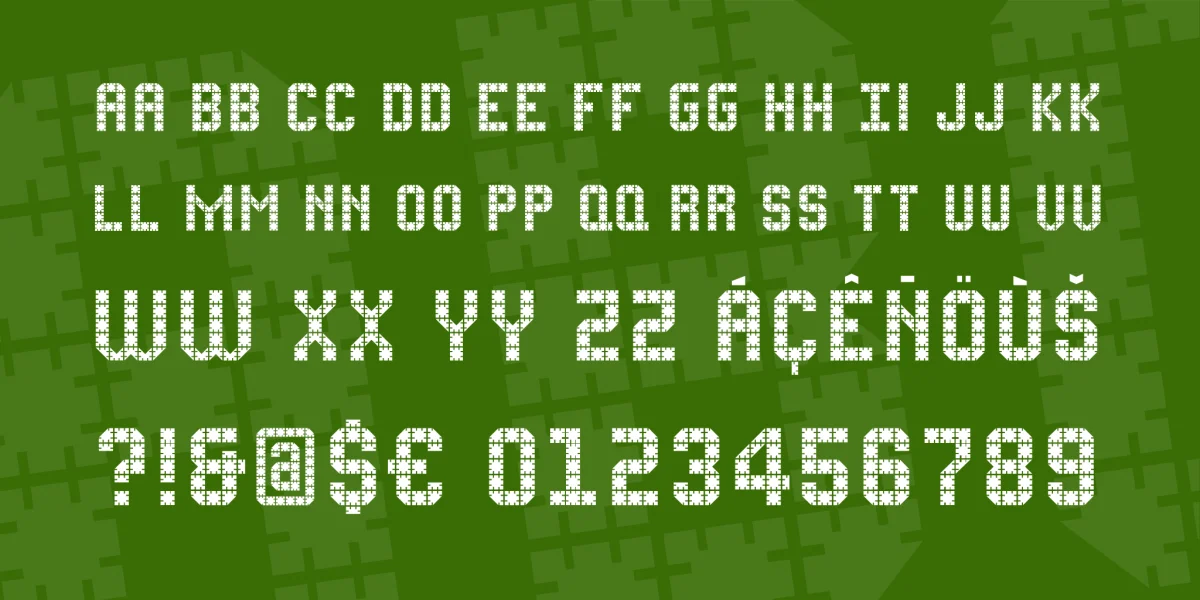
Designed in response to Gavin Peacock’s Flat Pack Mail Art call. Gavin, (a.k.a. The Man from Icon), mailed out packs of interlockable cardboard pieces for mailartists to create something for his project. Any excuse for a font.